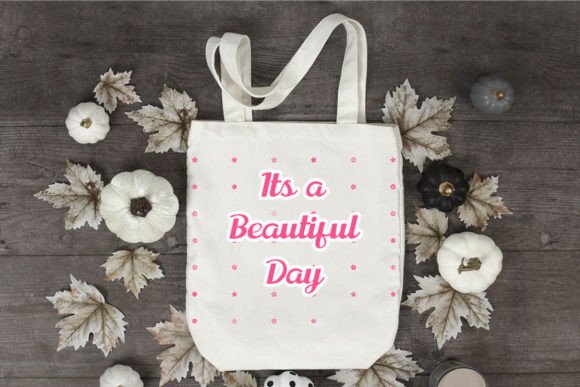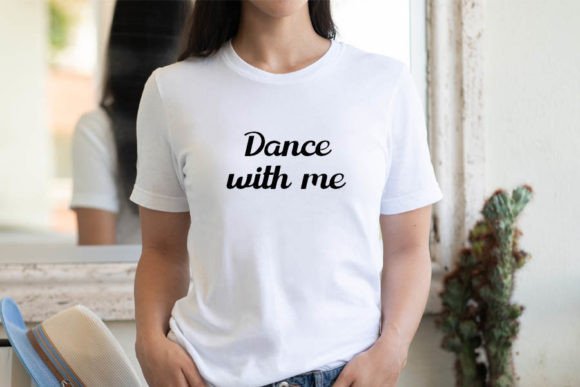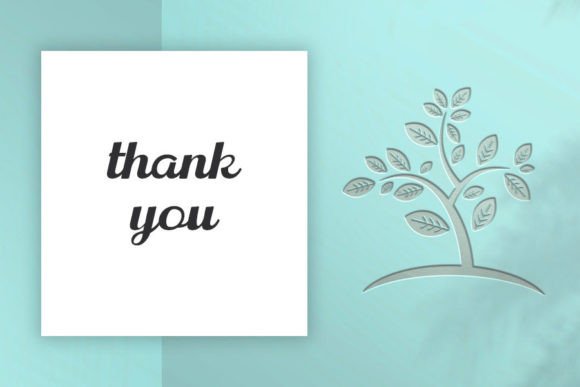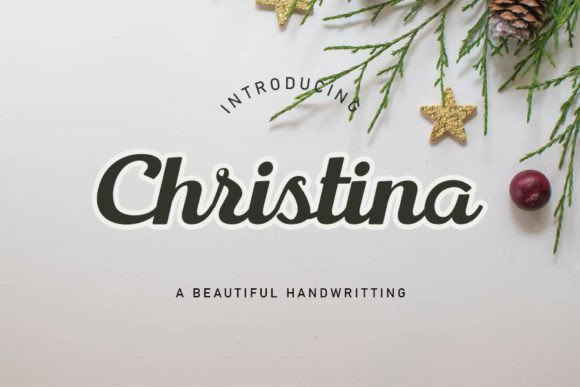
Discover the Elegance of Christina Font: A Sweet and Whimsical Script Font
Are you a designer or crafter looking for a font that adds a touch of luxury and sophistication to your design projects? Look no further than Christina Font, a beautiful script font that is sure to elevate your work. In this article, we’ll take a closer look at Christina Font, its features, and how you can use it to add a spark of elegance to your designs.
What is Christina Font?
Christina Font is a sweet, whimsical, and flowing script font that features characters that dance along the baseline. Its unique and elegant design makes it perfect for a variety of design projects, from wedding invitations and branding materials to packaging and digital graphics. With its luxurious feel, Christina Font is sure to add a touch of sophistication to any design.
Key Features of Christina Font
So, what makes Christina Font so special? Here are some of its key features:
- Whimsical and flowing design: Christina Font features characters that dance along the baseline, giving it a playful and whimsical feel.
- Luxurious and elegant: With its smooth lines and flowing curves, Christina Font exudes luxury and sophistication.
- Versatile: Christina Font can be used for a variety of design projects, from digital graphics to print materials.
- Easy to read: Despite its ornate design, Christina Font is easy to read, making it perfect for body text and headlines.
How to Use Christina Font in Your Design Projects
Now that we’ve covered the features of Christina Font, let’s talk about how you can use it in your design projects. Here are some ideas to get you started:
- Wedding invitations and stationery: Christina Font is perfect for wedding invitations, save-the-date cards, and other stationery.
- Branding and packaging: Use Christina Font to add a touch of luxury to your branding materials, such as business cards, letterheads, and packaging.
- Digital graphics: Christina Font can be used to create stunning digital graphics, such as social media graphics, blog headers, and email newsletters.
- Crafting and DIY projects: Christina Font can also be used for crafting and DIY projects, such as making cards, scrapbooking, and other paper crafts.
Tips for Getting the Most Out of Christina Font
To get the most out of Christina Font, here are some tips to keep in mind:
- Use it sparingly: While Christina Font is beautiful, it can be overwhelming if used too much. Use it sparingly to add a touch of elegance to your designs.
- Pair it with a sans-serif font: Pair Christina Font with a sans-serif font, such as Arial or Helvetica, to create a beautiful contrast.
- Experiment with colors and textures: Christina Font looks stunning in a variety of colors and textures. Experiment with different combinations to find the one that works best for your design.
In conclusion, Christina Font is a beautiful script font that is sure to add a touch of luxury and sophistication to your design projects. With its whimsical and flowing design, luxurious feel, and versatility, Christina Font is perfect for designers and crafters looking to elevate their work. Whether you’re creating wedding invitations, branding materials, or digital graphics, Christina Font is a great choice. So why not give it a try and see how it can add a spark of elegance to your designs?